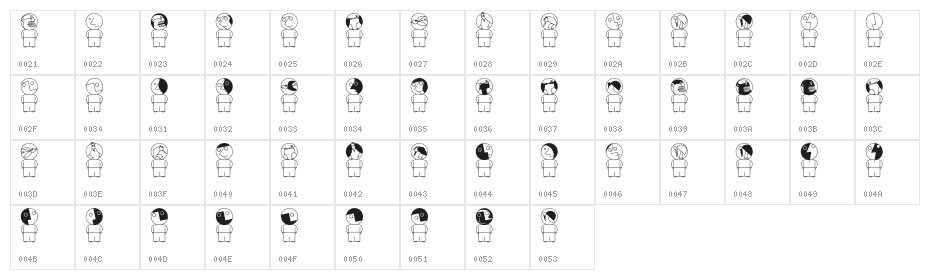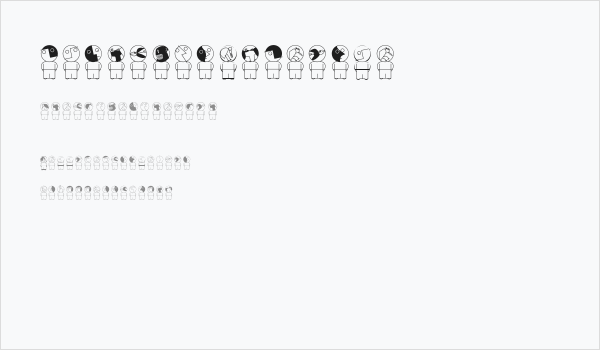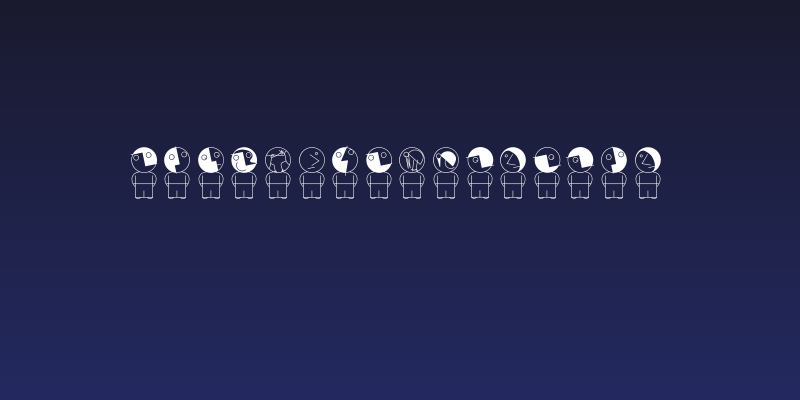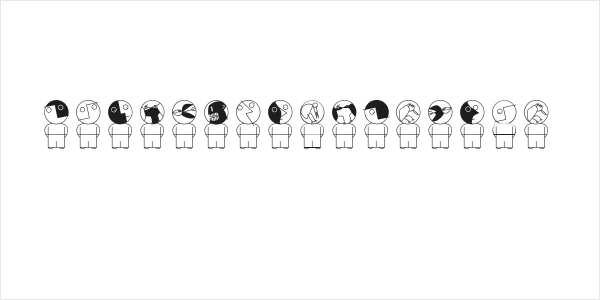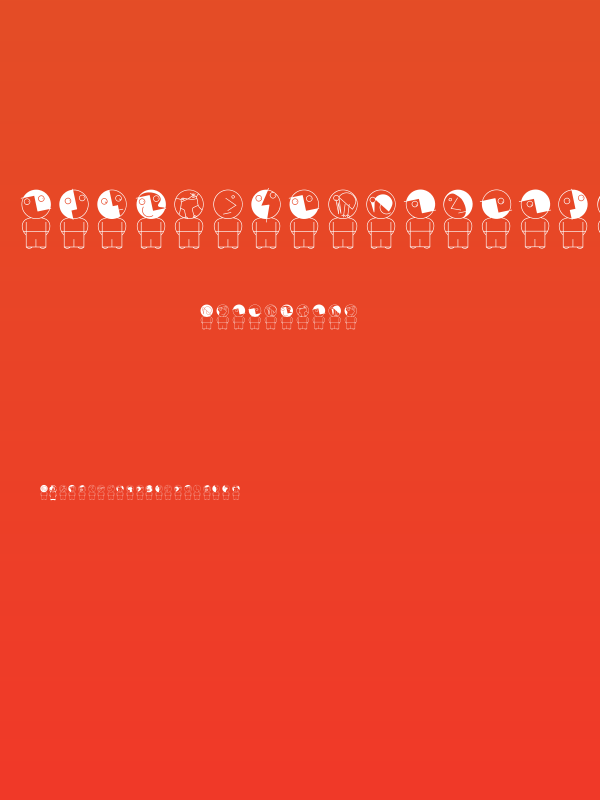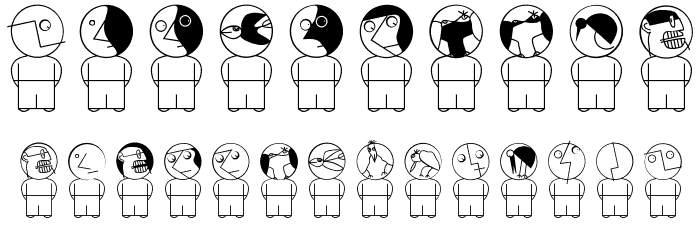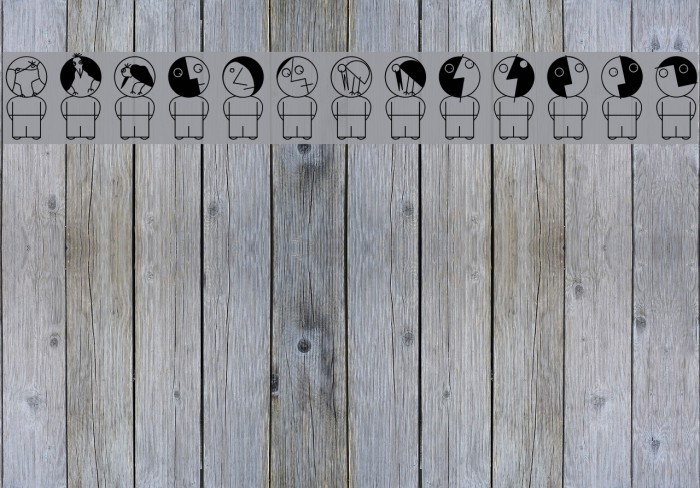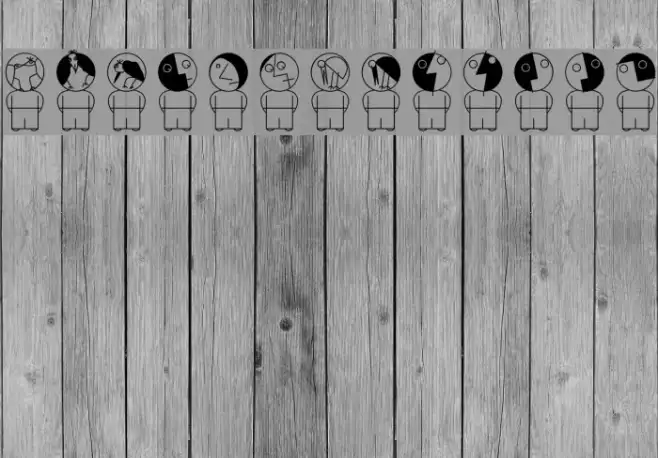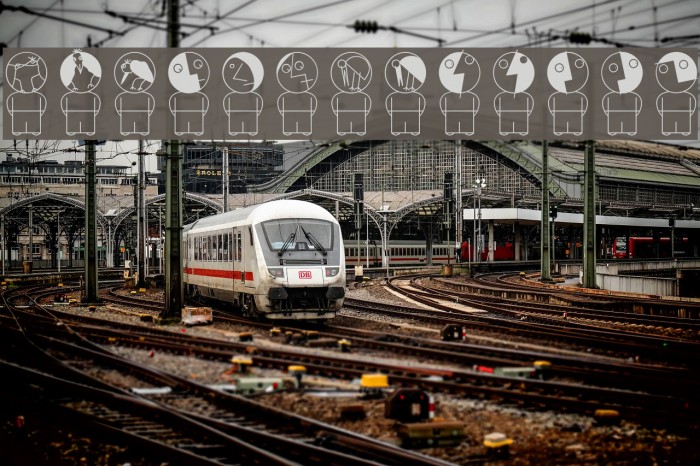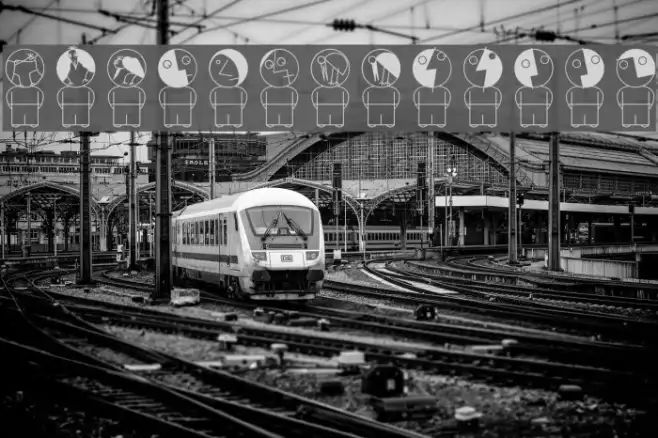
MkDrawingsPeople Font
| Overall Style | Decorative, Artistic, Playful |
| Use Case | Logos, Posters, Illustrations, Branding, Children’s content |
| Proposed Projects | Children’s books, creative branding, posters, art prints, educational materials, playful web graphics. |